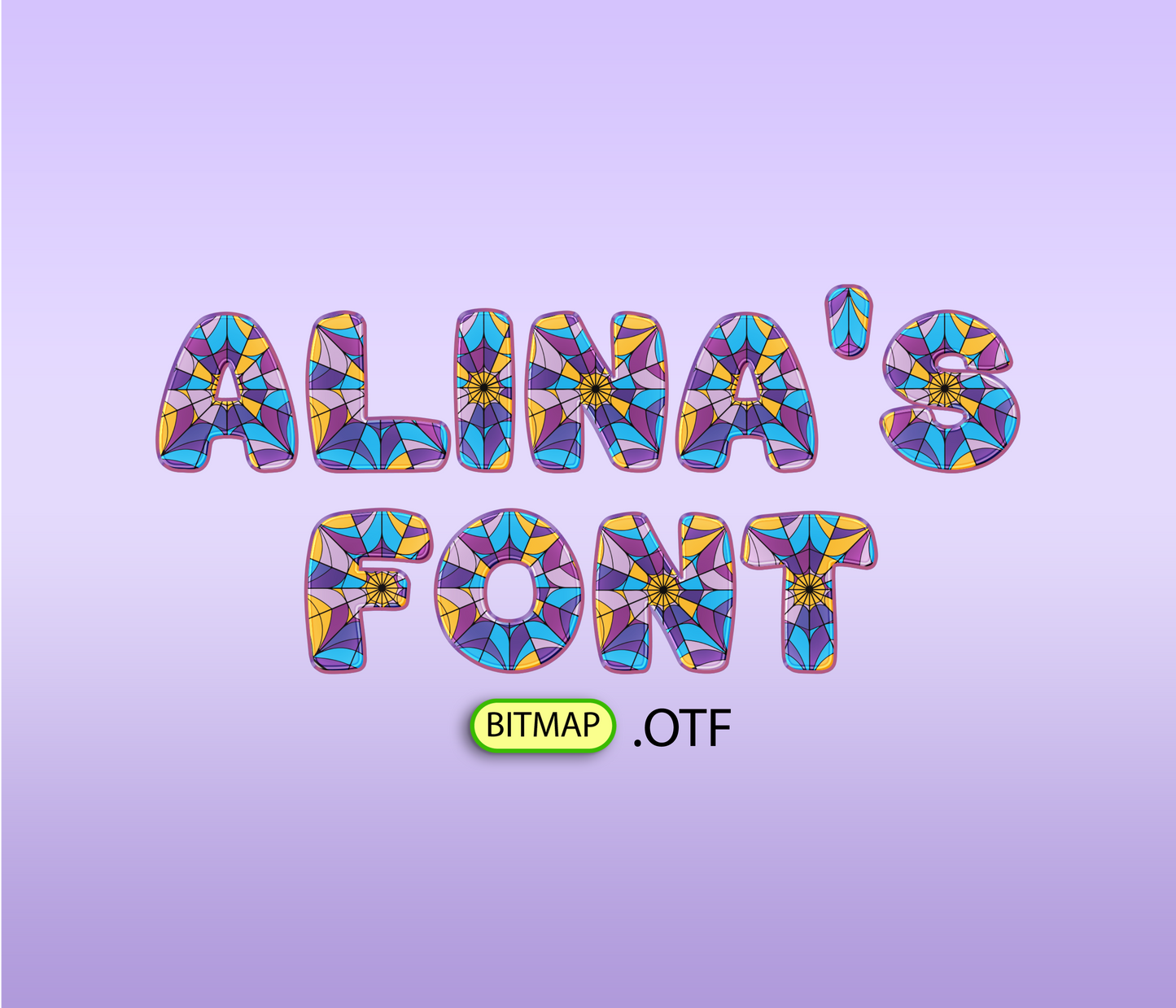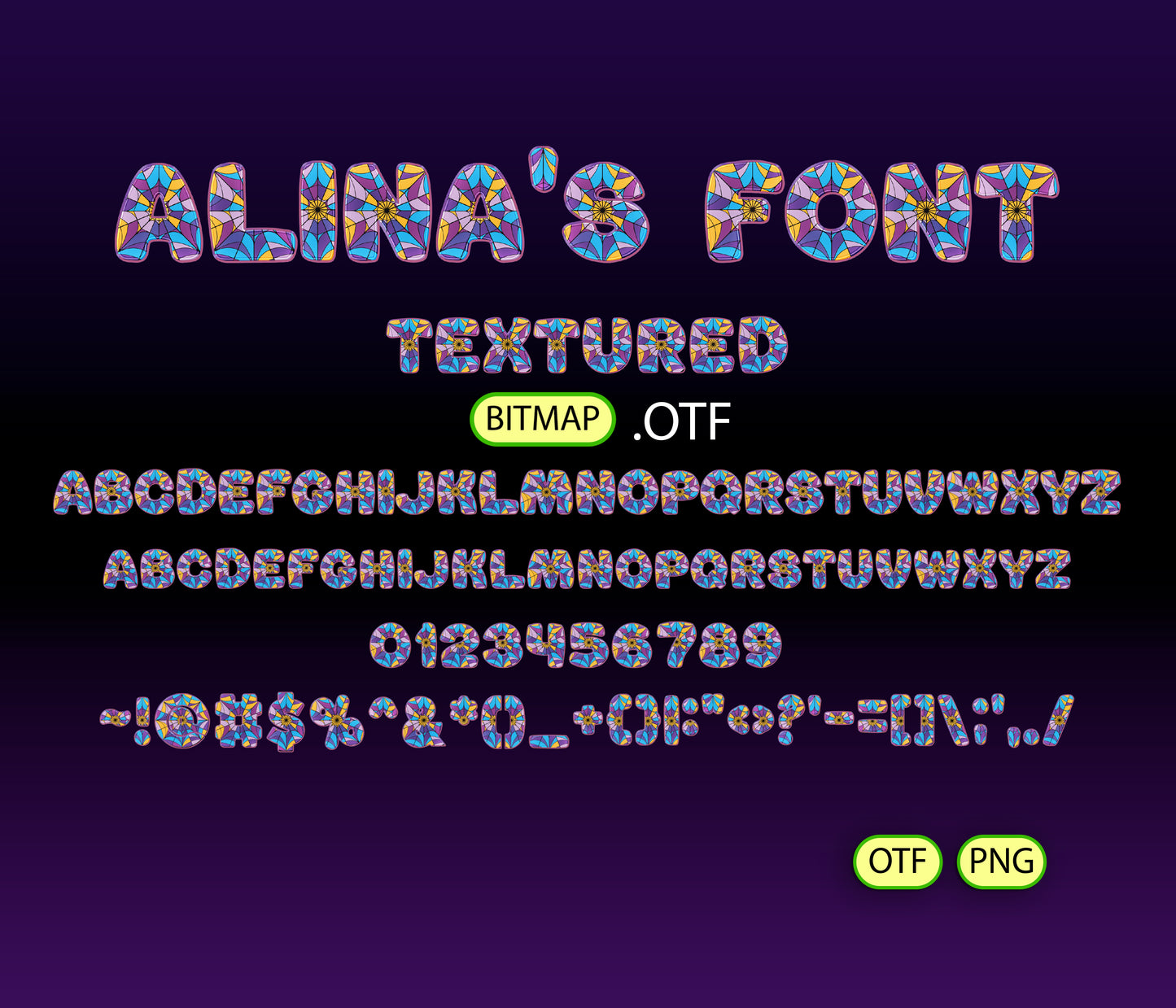
Cobweb Scholar Pattern Font
Cobweb Scholar Font Textured Dusty Mansion Style
Step into the forgotten world of ancient wisdom and decrepit elegance with our Cobweb Scholar font, capturing the essence of abandoned intellect and dusty sophistication. Perfect for vintage events, antique manor enthusiasts, forgotten content creators, and creative professionals, this font brings the dusty, scholarly spirit of cobweb-covered adventures to your projects. Create vintage invitations, mansion-themed merchandise, or digital content with the aged, intellectual energy of cobweb scholar tales.
Our Cobweb Scholar font features weathered, intricate strokes and vintage characters reflecting the antiquely brilliant yet forgotten aesthetic of dusty library scenarios. Ideal for:
- Vintage Events: Create attention-grabbing invites, posters, and banners for antique parties, mansion-themed experiences, and forgotten gatherings
- Antique Design: Perfect for book covers, vintage promotions, and dusty-themed party accessories that capture cobweb scholar mystique
- Digital Media: Enhance websites, blogs, and social media with weathered headers and graphics that express antiquity and scholarly spirit
- Entertainment Content: Add authentic character to vintage materials, mansion designs, and promotional materials for forgotten events
- Personal Projects: Bring antique charm to scrapbooking, DIY crafts, and home decor inspired by the aesthetics of cobweb scholars